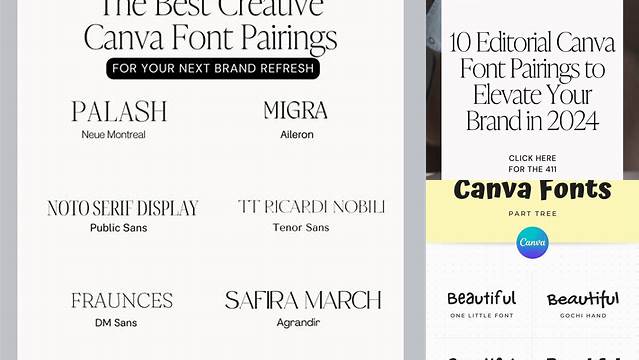
Best Fonts In Canva Pro: A Designer's Guide
Hey guys! Are you ready to take your Canva designs to the next level? One of the easiest ways to do that is by choosing the perfect fonts. Canva Pro offers a massive library of incredible fonts, but with so many options, it can be a bit overwhelming to find the best ones. Don't worry, I've got you covered! In this article, we're diving deep into the best fonts in Canva Pro, exploring a variety of styles, and giving you tips on how to use them effectively. Let's get started!
Why Fonts Matter in Design
Before we jump into specific fonts, let's quickly talk about why typography is so crucial in design. Fonts aren't just about making words readable; they're about conveying emotion, establishing a brand identity, and creating visual harmony. The right font can make your design feel professional, playful, elegant, or modern. The wrong font? Well, it can make your design look amateurish or even confusing. Think of fonts as the voice of your design. Just as your tone of voice affects how people perceive you, the fonts you choose affect how people perceive your message. A strong, bold font might convey confidence and authority, while a light, flowing script font might evoke feelings of elegance and creativity. It’s all about choosing the right voice for the occasion. When you’re designing a logo, for example, you want a font that not only looks good but also represents your brand’s personality. Are you a tech company aiming for a sleek, modern look? Or a boutique bakery going for a whimsical, handcrafted feel? Your font choice should reflect that. And it's not just about logos. Fonts play a critical role in every aspect of your design, from website headers and body text to social media graphics and presentations. The key is to consider your overall message and choose fonts that support it. Think about the readability of your font, too. A beautiful font is useless if people can't easily read it. Consider the size of the text, the spacing between letters, and the contrast against the background. You want your message to be clear and accessible to everyone. Also, don't be afraid to experiment with font pairings. Combining different fonts can add depth and visual interest to your design, but it's essential to do it thoughtfully. A general rule of thumb is to pair a decorative font with a more simple, neutral font. This creates a balance and prevents your design from feeling overwhelming. In summary, choosing the right fonts is a critical part of the design process. It’s about more than just aesthetics; it’s about communication. By understanding the power of typography, you can create designs that not only look great but also effectively convey your message and connect with your audience. So, let's explore some of the best fonts Canva Pro has to offer and learn how to use them to your advantage.
Top Serif Fonts in Canva Pro
Serif fonts are those classic fonts with the little “feet” or strokes at the ends of the letters. They often convey a sense of tradition, authority, and elegance. If you’re looking for fonts that feel timeless and professional, serif fonts are your go-to. Canva Pro has a fantastic selection of serif fonts, each with its own unique personality. Let's explore some of the top contenders. One of the most popular serif fonts in Canva Pro is Lora. Lora is a well-balanced serif with roots in calligraphy, making it both readable and visually appealing. It has a contemporary feel while still retaining a classic elegance. This makes it an excellent choice for body text, headlines, and even logos. It’s versatile enough to work in a variety of design contexts, from websites to print materials. Another standout serif font is Playfair Display. This font is all about sophistication and drama. With its high contrast and elegant serifs, Playfair Display is perfect for headlines, titles, and other prominent text elements. It’s a great choice for projects that need a touch of luxury and refinement. Think wedding invitations, magazine layouts, or high-end branding. If you're looking for a serif font with a more modern edge, Merriweather is an excellent option. Merriweather is designed specifically for on-screen reading, so it’s incredibly legible even at smaller sizes. It has a sturdy, reliable feel, making it a great choice for body text in websites, articles, and reports. But don't let its practicality fool you; Merriweather also has a subtle elegance that makes it suitable for headlines and other display elements. For a font that exudes classic elegance, look no further than Bodoni. Bodoni is a high-contrast serif font that’s been a favorite among designers for centuries. It’s known for its dramatic strokes and refined appearance. Bodoni is a fantastic choice for fashion magazines, luxury brands, and any project that calls for a touch of old-world glamour. When choosing serif fonts, it’s important to consider the overall tone and message of your design. Are you aiming for a classic, traditional look? Or a more modern, sophisticated feel? The fonts you choose should align with your goals. Also, think about readability. While decorative serif fonts can be beautiful, they may not be the best choice for long blocks of text. In those cases, a more legible serif font like Lora or Merriweather would be a better option. And don't forget about font pairings! Serif fonts often pair well with sans-serif fonts, creating a visual contrast that's both appealing and effective. Experiment with different combinations to find the perfect balance for your design. In conclusion, the serif fonts in Canva Pro offer a wide range of options for creating designs that are both timeless and elegant. Whether you're working on a logo, a website, or a print project, the right serif font can help you convey your message with style and authority. So, dive in and explore the possibilities!
Top Sans-Serif Fonts in Canva Pro
Now, let's switch gears and talk about sans-serif fonts. Unlike serif fonts, sans-serif fonts don't have those little strokes at the ends of the letters. They tend to look more modern, clean, and minimalist. Sans-serif fonts are super versatile and work well in a variety of design contexts, from websites and apps to brochures and posters. Canva Pro has a fantastic selection of sans-serif fonts, so let's explore some of the best ones. One of the most popular and widely used sans-serif fonts is Montserrat. Montserrat has a clean, geometric design that feels both modern and approachable. It’s incredibly versatile and works well for headlines, body text, and everything in between. Montserrat is a great choice for websites, logos, branding materials, and any project that needs a touch of contemporary style. Its clarity and readability make it a go-to option for designers worldwide. Another excellent sans-serif font in Canva Pro is Open Sans. Open Sans is known for its neutral yet friendly appearance. It’s designed to be highly legible on screens, making it an ideal choice for websites, apps, and digital publications. Open Sans is clean, simple, and unobtrusive, allowing your content to take center stage. It’s a workhorse font that you can rely on for a variety of projects. For a sans-serif font with a bit more personality, check out Raleway. Raleway has an elegant and slightly quirky feel, with its distinctive “W” and other unique letterforms. It’s a great choice for headlines, logos, and branding materials that need a touch of sophistication. Raleway is a versatile font that can work in both modern and classic designs. If you’re looking for a bold and impactful sans-serif font, Poppins is an excellent option. Poppins has a geometric design with a strong, confident presence. It’s perfect for headlines, posters, and other display elements that need to grab attention. Poppins is a great choice for projects that require a modern and authoritative feel. When choosing sans-serif fonts, consider the overall tone and style of your design. Are you going for a clean, minimalist look? Or something more bold and impactful? The fonts you choose should reflect your design goals. Also, think about readability. While some sans-serif fonts are highly decorative, they may not be the best choice for long blocks of text. In those cases, a more legible sans-serif font like Open Sans or Montserrat would be a better option. And, just like with serif fonts, font pairings are key. Sans-serif fonts often pair well with serif fonts, creating a balanced and visually appealing contrast. Experiment with different combinations to find the perfect match for your design. In summary, Canva Pro’s selection of sans-serif fonts offers a wide range of options for creating designs that are modern, clean, and effective. Whether you’re working on a website, a logo, or a marketing campaign, the right sans-serif font can help you communicate your message with clarity and style. So, go ahead and explore the possibilities, and have fun creating awesome designs!
Script and Display Fonts in Canva Pro
Okay, now let’s talk about the fun stuff: script and display fonts! These are the fonts that bring personality and flair to your designs. Script fonts mimic handwriting, adding a touch of elegance, romance, or whimsy. Display fonts, on the other hand, are more decorative and unique, perfect for headlines, logos, and other eye-catching elements. Canva Pro has a fantastic collection of both, so let's dive in and explore some of the best. If you're looking for a classic and elegant script font, Great Vibes is a must-try. Great Vibes has beautiful, flowing letterforms that are perfect for wedding invitations, greeting cards, and other projects that call for a touch of sophistication. It’s a decorative font, so it’s best used sparingly, but when used correctly, it can add a real touch of class to your design. Another popular script font in Canva Pro is Pacifico. Pacifico has a casual, retro vibe that’s perfect for beach-themed designs, posters, and social media graphics. It’s a friendly and approachable font that adds a touch of fun to any project. Pacifico is especially great for designs that need a bit of a vintage feel. For a more modern and edgy script font, check out Playlist Script. Playlist Script has a brushstroke-style design that feels both contemporary and artistic. It’s a great choice for logos, posters, and branding materials that need a touch of creative flair. Playlist Script is bold and eye-catching, making it perfect for projects that need to stand out. When it comes to display fonts, Canva Pro has a ton of options, but one standout is Bebas Neue. Bebas Neue is a tall, condensed sans-serif font that’s perfect for headlines, posters, and other display elements. It’s clean, modern, and impactful, making it a great choice for projects that need a strong visual presence. Bebas Neue is incredibly versatile and can work in a variety of design contexts. Another fantastic display font is Luckiest Guy. Luckiest Guy has a fun, hand-drawn style that’s perfect for posters, flyers, and social media graphics. It’s a playful and energetic font that adds a touch of whimsy to any project. Luckiest Guy is especially great for designs that target a younger audience. When using script and display fonts, it’s important to use them strategically. These fonts are best used for headlines, logos, and other prominent text elements, rather than for long blocks of text. Too much script or display font can make your design feel cluttered and hard to read. Also, think about font pairings. Script and display fonts often pair well with simpler sans-serif fonts, creating a balanced and visually appealing contrast. Experiment with different combinations to find the perfect match for your design. In summary, Canva Pro’s collection of script and display fonts offers a wealth of options for adding personality and flair to your designs. Whether you’re working on a wedding invitation, a poster, or a logo, the right script or display font can help you make a statement. So, have fun exploring these fonts and let your creativity shine!
Tips for Choosing the Right Fonts
Okay, guys, so now that we've explored some of the best fonts in Canva Pro, let's talk about how to choose the right ones for your projects. Choosing fonts can sometimes feel overwhelming, but with a few simple tips, you can make the process much easier and more effective. First and foremost, consider your brand. Your fonts should align with your brand’s personality and values. Are you a fun and playful brand? Or a serious and professional one? Your font choices should reflect that. If you have a brand style guide, it should specify your primary and secondary fonts. Stick to these fonts to maintain consistency across all your designs. If you don’t have a style guide, now might be a good time to create one! Consistency is key when it comes to branding. Using the same fonts across all your materials helps create a cohesive and recognizable brand identity. Think about the message you want to convey. Different fonts evoke different emotions and associations. A bold, sans-serif font might convey confidence and strength, while a delicate script font might convey elegance and romance. Choose fonts that support the message you’re trying to communicate. Readability is crucial. A beautiful font is useless if people can’t easily read it. Make sure your fonts are legible at different sizes and on different devices. Avoid using overly decorative fonts for long blocks of text. Simpler, more legible fonts like Open Sans or Lora are better choices for body text. Don't be afraid to experiment with font pairings. Combining different fonts can add depth and visual interest to your designs. A general rule of thumb is to pair a decorative font with a more simple, neutral font. This creates a balance and prevents your design from feeling overwhelming. Canva Pro makes it easy to try out different font pairings. Play around with different combinations until you find something that works. Use font hierarchies effectively. Use different font sizes and weights to create visual hierarchy in your designs. Headings should be larger and bolder than body text, making it easy for viewers to scan your content and understand the main points. Limit the number of fonts you use. While it’s fun to experiment, using too many fonts in a single design can make it look cluttered and confusing. Stick to a maximum of two or three fonts to maintain a clean and professional look. Think about your audience. Who are you trying to reach with your design? Choose fonts that resonate with your target audience. A font that appeals to teenagers might not be the best choice for a design aimed at older adults. Consider the context of your design. Where will your design be used? A font that looks great on a website might not work as well in a printed brochure. Think about the medium and choose fonts accordingly. And finally, trust your instincts! Ultimately, the best fonts are the ones that you think look good and that effectively communicate your message. Don’t be afraid to break the rules and try something new. The most important thing is to create a design that you’re proud of. In conclusion, choosing the right fonts is a crucial part of the design process. By considering your brand, message, readability, and audience, you can select fonts that help you create visually appealing and effective designs. So, have fun exploring the fonts in Canva Pro, and let your creativity shine!
So there you have it, guys! A deep dive into the best fonts in Canva Pro. We've explored serif, sans-serif, script, and display fonts, and we've talked about how to choose the right fonts for your projects. Remember, fonts are a powerful tool in design. They can convey emotion, establish brand identity, and create visual harmony. By understanding the different types of fonts and how to use them effectively, you can take your Canva designs to the next level. Whether you're designing a logo, a website, or a social media graphic, the fonts you choose can make all the difference. So, have fun experimenting, trust your instincts, and let your creativity shine. Canva Pro has a fantastic selection of fonts, so the possibilities are endless. Now go out there and create some amazing designs! Happy designing, everyone!